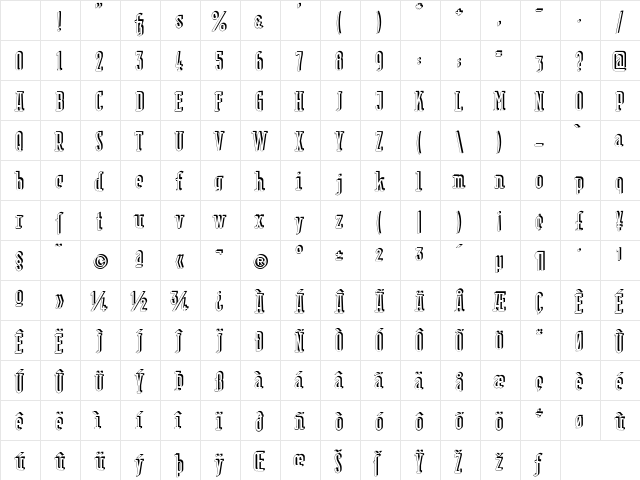
Berlin Email Serif Shadow is built around its visual character rather than neutral utility - its distinctive forms are designed to make an impression at display sizes.
Font Pairing: Pair with a clean neutral sans-serif for body copy to let Berlin Email Serif Shadow's character lead without overwhelming the composition.
Pro Tip: Use Berlin Email Serif Shadow exclusively at display sizes - it was designed to be seen, not read at length. Let a neutral companion handle body copy.
Who designed the Berlin Email Serif Shadow Regular font?
This font was published by Peter Wiegel, CAT Webdesign, Wolgast. Check the technical specs section for copyright and designer details.